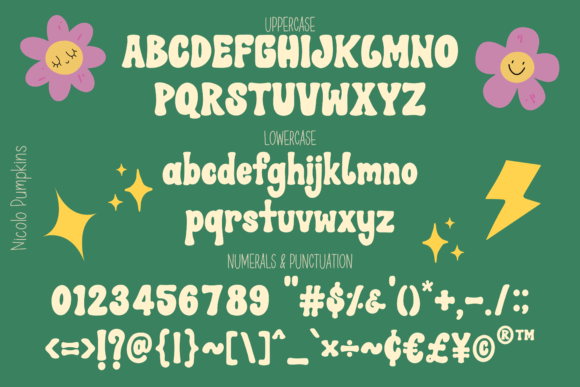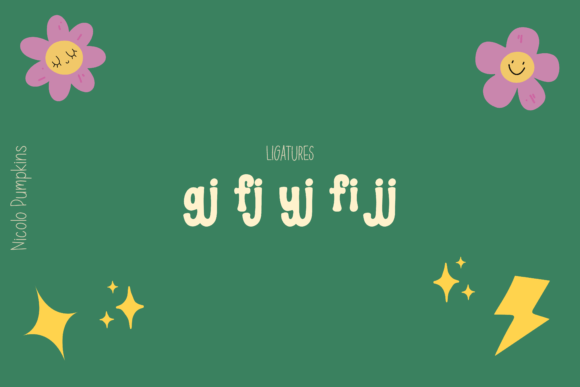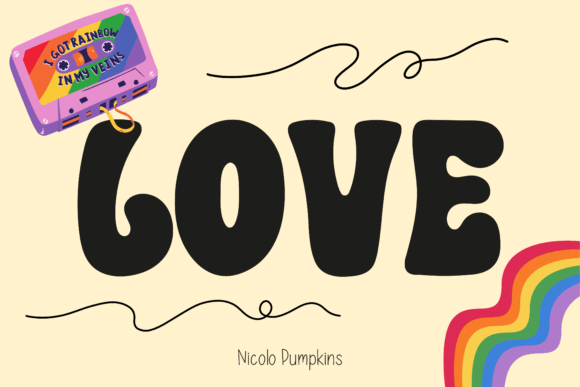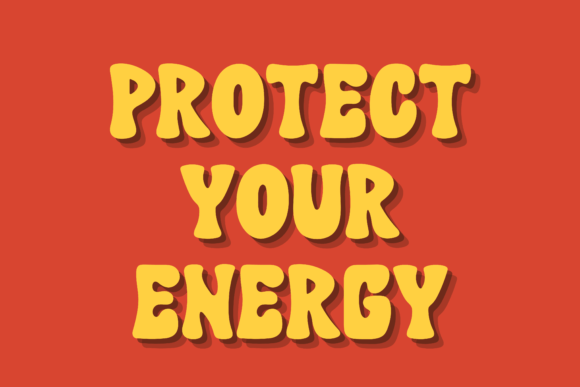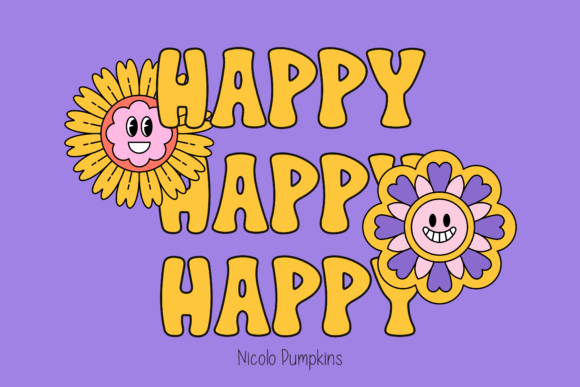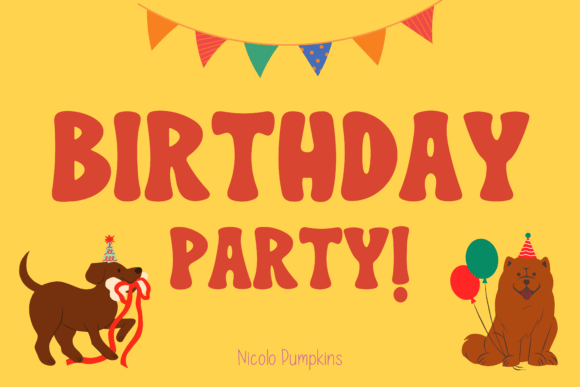
Groovy Retro Font: The Ultimate Design Companion for Creative Minds
Are you a designer, crafter, or DIY enthusiast looking for a font that can add a touch of nostalgia and playfulness to your creative projects? Look no further than the Groovy Retro Font! This adorable, groovy, and retro display font is perfect for making your designs stand out and leave a lasting impression.
What Makes Groovy Retro Font So Special?
Groovy Retro Font is a versatile and eye-catching font that can be used for a wide range of design projects, including:
- T-shirts and apparel
- Tote bags and canvas
- Hats and caps
- Stickers and labels
- Wedding invitations and party decor
- Cards and stationery
- Quotes and posters
Its unique blend of retro charm and modern flair makes it an ideal choice for designers and crafters who want to add a dash of personality to their work.
Key Features of Groovy Retro Font
So, what sets Groovy Retro Font apart from other fonts? Here are some of its key features:
- Cute and Playful Design: Groovy Retro Font boasts a delightful, hand-drawn design that’s sure to bring a smile to your face.
- Retro Vibes: Inspired by the groovy designs of the 60s and 70s, this font is perfect for adding a touch of nostalgia to your projects.
- High-Quality and Scalable: Groovy Retro Font is designed to be clear and legible, even at small sizes, making it perfect for a wide range of applications.
- Easily Customizable: With its wide range of characters and symbols, you can easily customize your text to fit your design needs.
How to Use Groovy Retro Font in Your Designs
Using Groovy Retro Font in your designs is easy! Here are some tips to get you started:
- Pair it with Solids and Patterns: Combine Groovy Retro Font with solid colors and patterns to create visually appealing designs.
- Experiment with Colors: Try out different color combinations to find the perfect match for your design.
- Add Graphics and Illustrations: Use Groovy Retro Font in conjunction with graphics and illustrations to add an extra layer of depth to your design.
Why Designers and Crafters Love Groovy Retro Font
Designers and crafters love Groovy Retro Font for many reasons. Here are a few:
- Instant Recognition: Groovy Retro Font is instantly recognizable and can help your designs stand out in a crowded marketplace.
- Emotional Connection: The retro vibe of this font can evoke feelings of nostalgia and playfulness, creating an emotional connection with your audience.
- Easy to Read: Despite its playful design, Groovy Retro Font is easy to read, making it perfect for designs that require a clear message.
In conclusion, Groovy Retro Font is a versatile and eye-catching font that’s perfect for designers, crafters, and DIY enthusiasts. Its unique blend of retro charm and modern flair makes it an ideal choice for a wide range of design projects. Whether you’re looking to create a statement piece or add a touch of personality to your designs, Groovy Retro Font is the ultimate design companion.